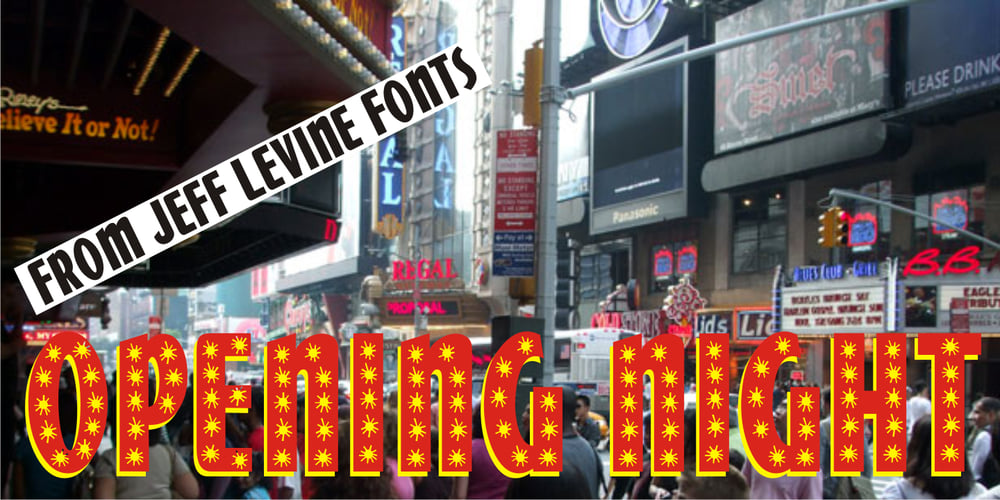
Opening Night JNL Font Family was designed by Jeff Levine and published by Jeff Levine. Opening Night JNL contains 1 styles and family package options. Add some twinkling lights to a bold Art Deco font such as Art Lesson JNL, and the result is a typeface which truly puts your name (or message) up in lights. Opening Night JNL conjures up images of Broadway plays and Hollywood premiers.